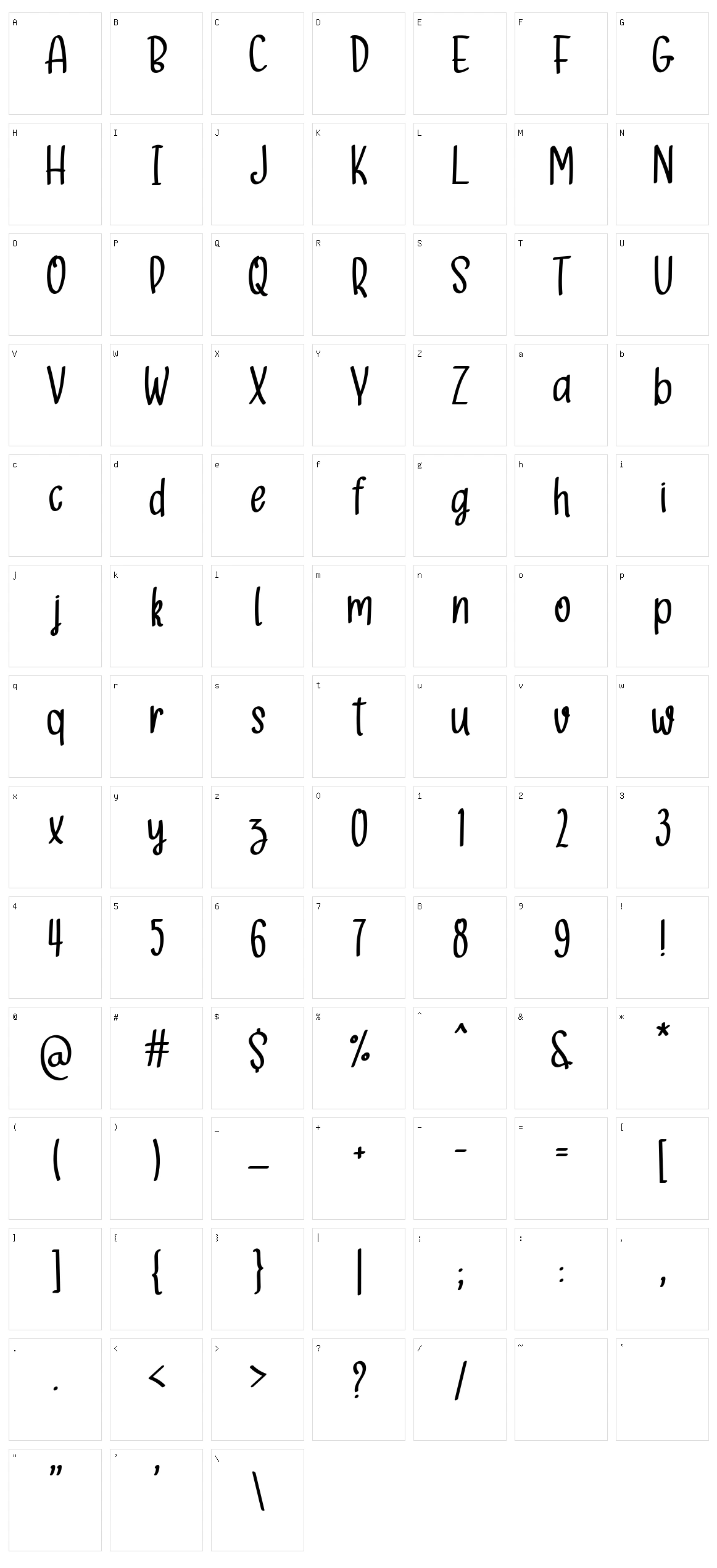
Escapar Font by GraphicsFamily
This is an absolutely free hand crafted font created and offered by GraphicsFamily.
Escapar is a captivating font which can impress your audience breaking the stereotypes. It is designed very carefully to be simple and attractive. Download, type and personalize it in your own style using some nice effects.